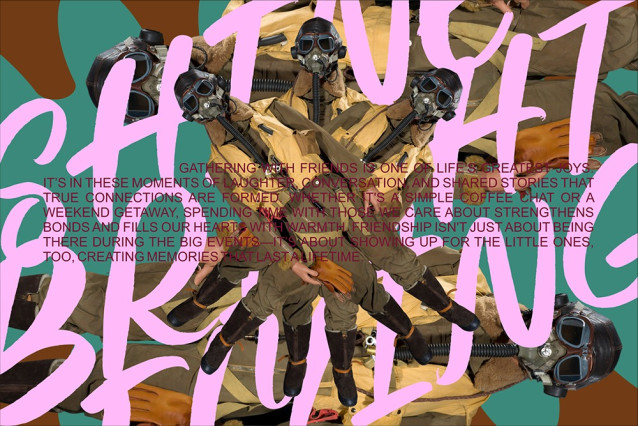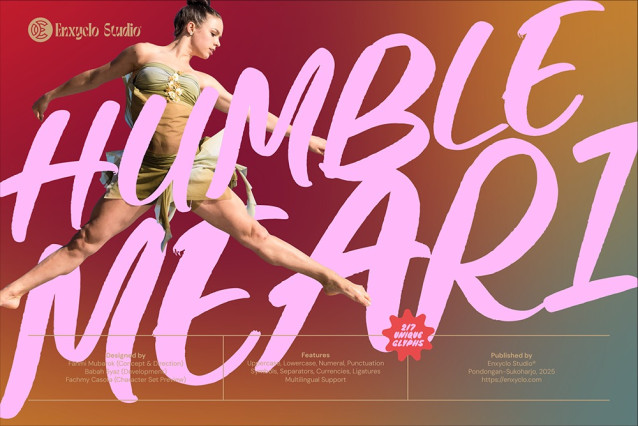
Humble Meari Font
Humble Meari Font is an elegant and expressive script font that beautifully blends fluid cursive strokes with a natural, handwritten charm. Perfectly balancing sophistication and warmth, this font offers a versatile character set featuring uppercase and lowercase letters that flow seamlessly, making it ideal for projects that require a personal yet refined touch. With its graceful curves and legible style, Humble Meari enhances branding, wedding invitations, editorial design, and packaging, bringing an authentic, artistic flair that captures attention and evokes emotion.